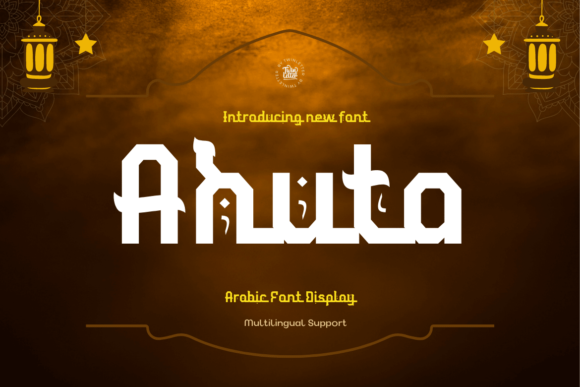
The Perfect Blend of Vintage Charm and Modern Elegance: Ahuta Font
As a designer, there’s nothing quite like the thrill of stumbling upon a unique font that perfectly captures the essence of a project. You know, that moment when the words start flowing, and the design begins to take shape. It’s a feeling that’s hard to replicate, but one that Ahuta Font is sure to evoke.
Designed to evoke the timeless elegance of vintage Arabic fonts, Ahuta Font is a masterclass in simplicity and sophistication. Our dedicated team has crafted this typeface with precision and care, resulting in a truly exceptional font that’s perfect for designers looking to add a touch of authenticity to their projects. Whether you’re working on a branding campaign, a wedding invitation, or a cultural event, Ahuta Font is sure to elevate your designs to new heights.
- Unique Characteristics: Ahuta Font features a unique blend of modern and traditional design elements, with intricate details and ornate flourishes.
Review of Ahuta Font
Overall, I think the Ahuta font is a solid addition to any designer’s toolkit. Here are some things that work well: ✨
- Unique Character**: Ahuta font has an interesting mix of modern and traditional design elements. It’s a refreshing change from the usual sans-serif fonts.
- Legibility**: The font is highly legible, even at smaller font sizes. This makes it perfect for body text or smaller headings.
- Style Variations**: Ahuta font comes in a variety of styles, from bold to light, making it versatile and easy to use in different contexts.
- Limited Use Cases**: While Ahuta font is great for body text or smaller headings, it may not be the best choice for large headlines or titles.
- Not Ideal for Complex Text**: The font’s design may not be suitable for complex or dense text, as it can be difficult to read.
Overall, I think Ahuta font is a great addition to any designer’s toolkit. While it may not be perfect for every use case, its unique character and high legibility make it a great choice for many projects. With a little creativity and experimentation, designers can unlock the full potential of this versatile font.
Tips for Getting the Most Out of Ahuta Font
Ahuta Font is a versatile font that can be used for a variety of purposes, including:
- Logo design
- Brand identity
- Print materials
- Digital design
Ahuta Font is commonly used for:
- Business cards
- Brochures
- Posters
- Website headers